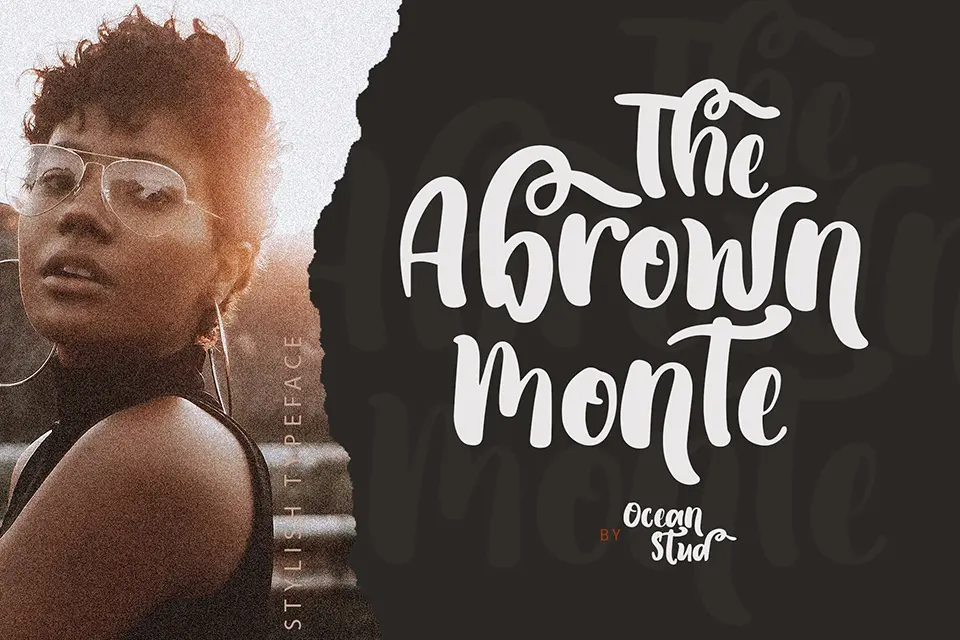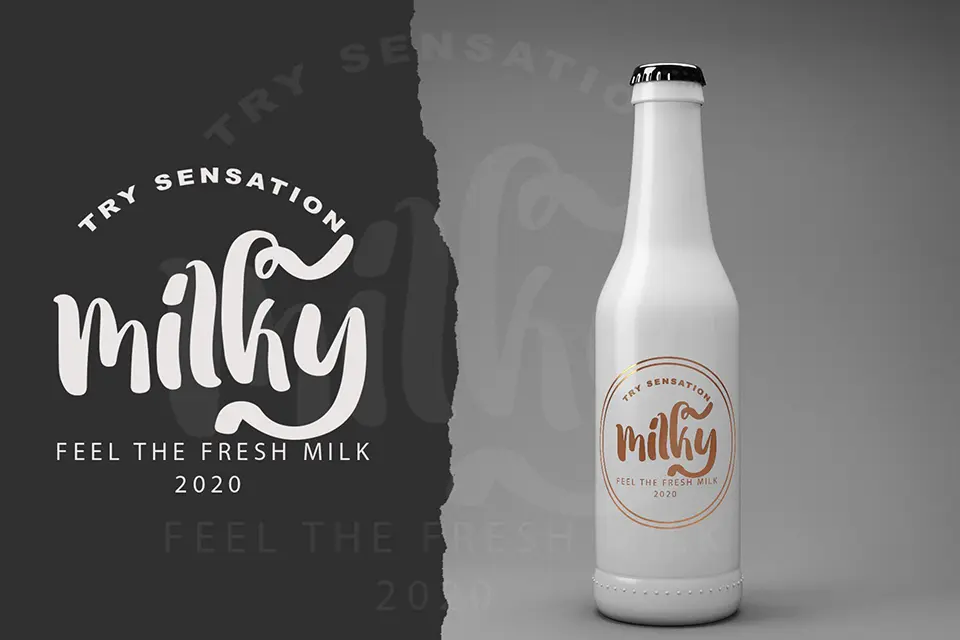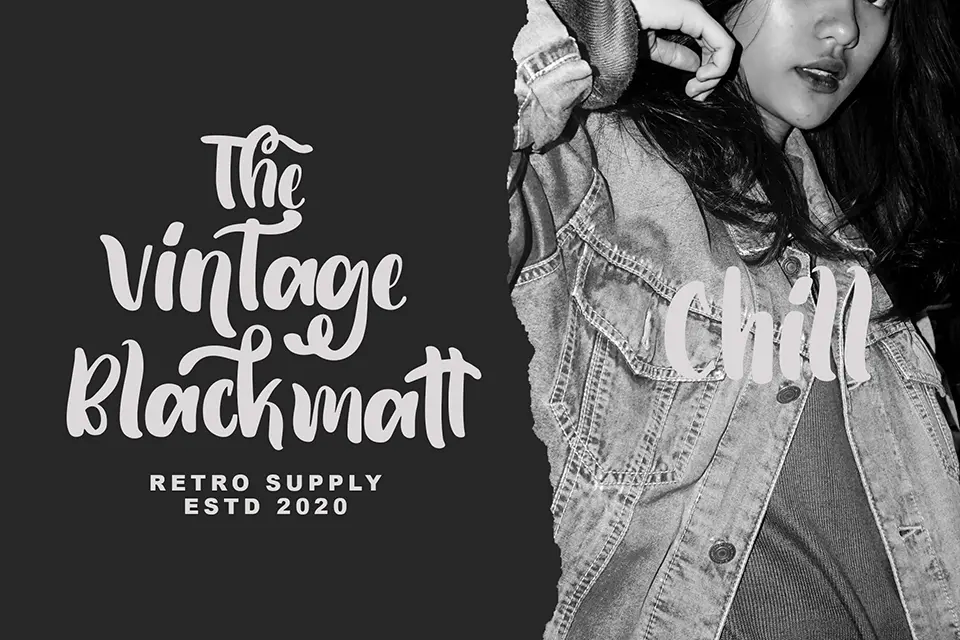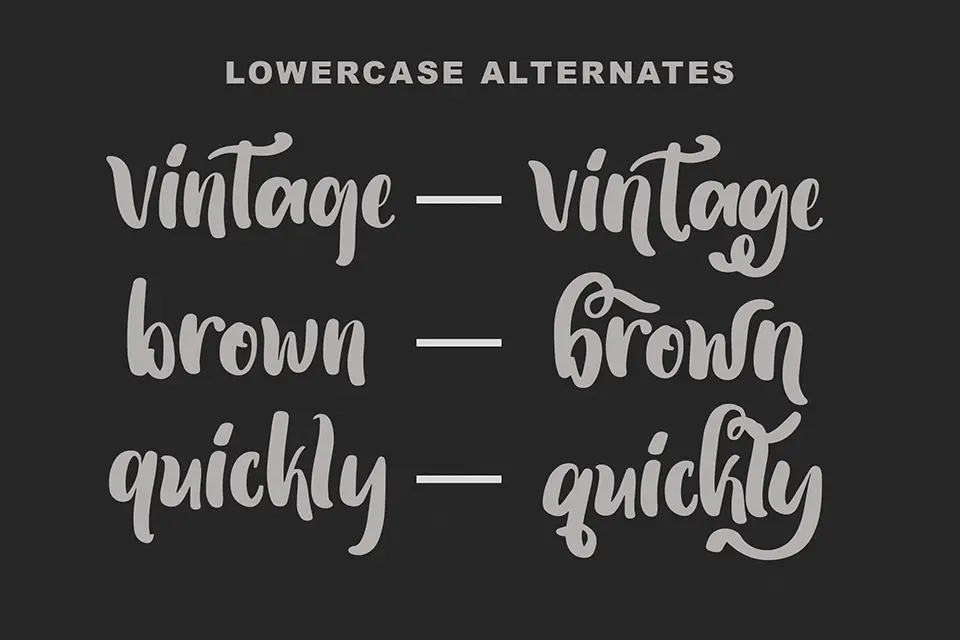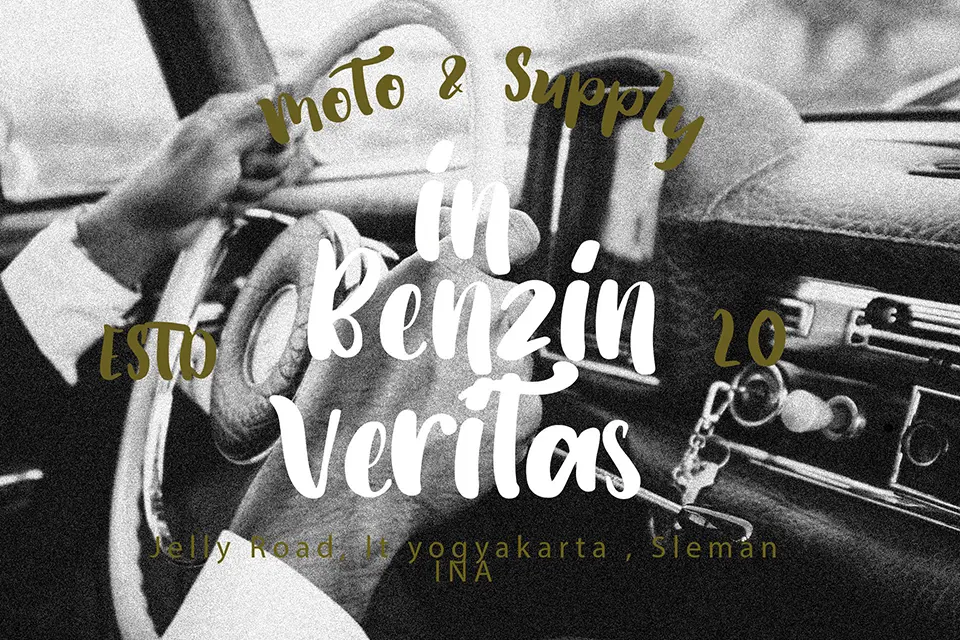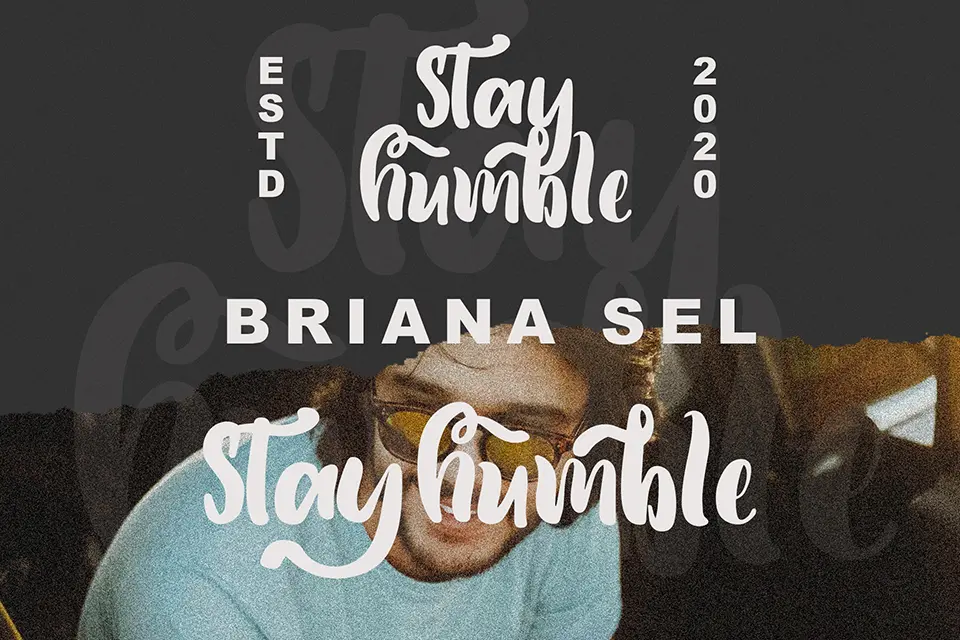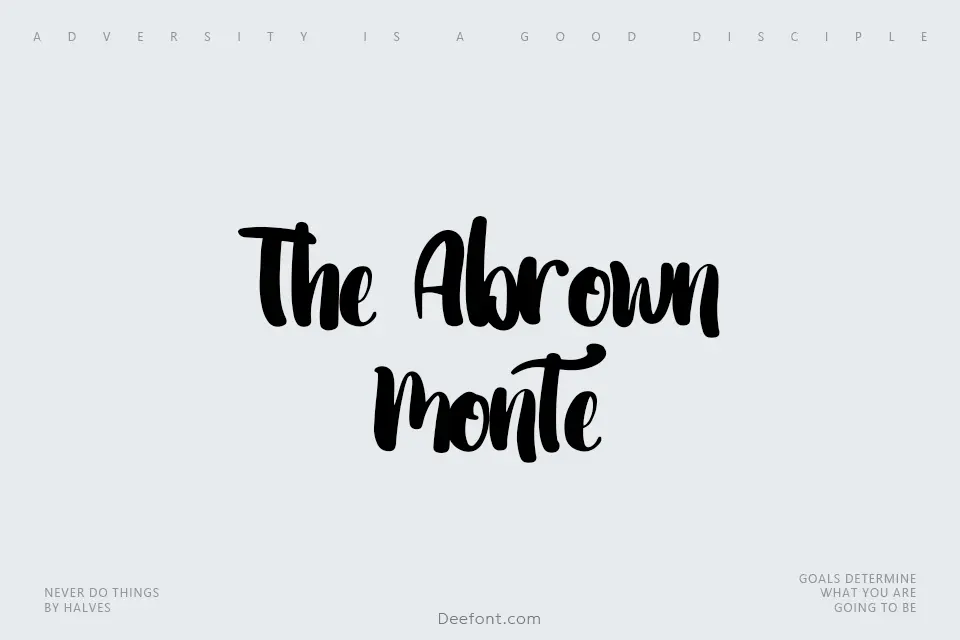
The Abrown Monte Font
The Abrown Monte is an elegant handwritten font characterized by its flowing brushstrokes and vintage-inspired swashes. Designed by Laire Banyu Sandi Pawenang of The Ocean Studio, this typeface combines casual charm with refined sophistication, making it ideal for wedding invitations, logos, quotes, and branding projects. Its organic, handcrafted aesthetic features dynamic letterforms with subtle texture variations, evoking a sense of authenticity. While free for personal use, commercial applications require licensing. The font includes multilingual support and stylistic alternates, though its standout feature remains the graceful swashes that enhance decorative typography. Perfect for designers seeking a balance between artistic flair and readability in luxury or romantic-themed designs.